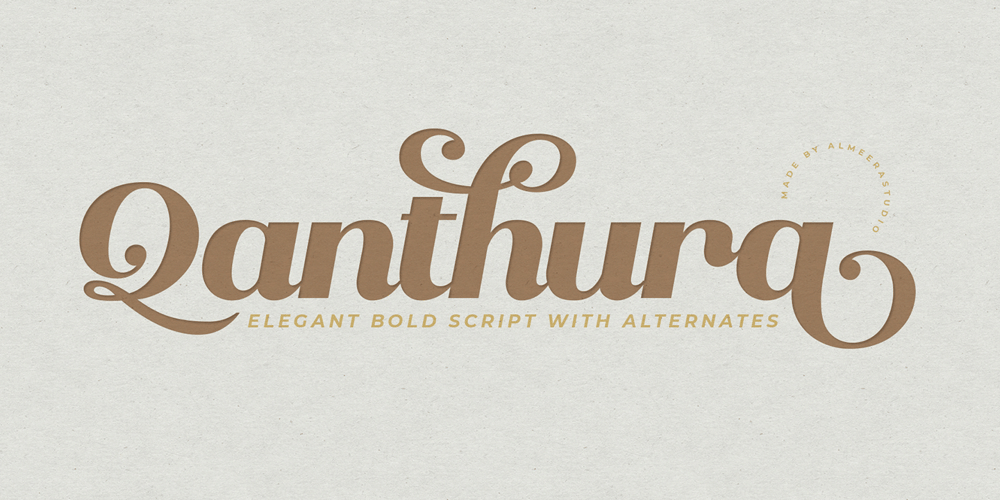
Qanthura Typeface Font Family was designed by Rinto Dwi Nugroho and published by Almeera Studio. Qanthura Typeface contains 1 styles and family package options. Introducing Qanthura Elegant bold script .With more alternates. Ideal for logos, handwritten quotes, product packaging, header, poster, merchandise, social media & greeting cards.